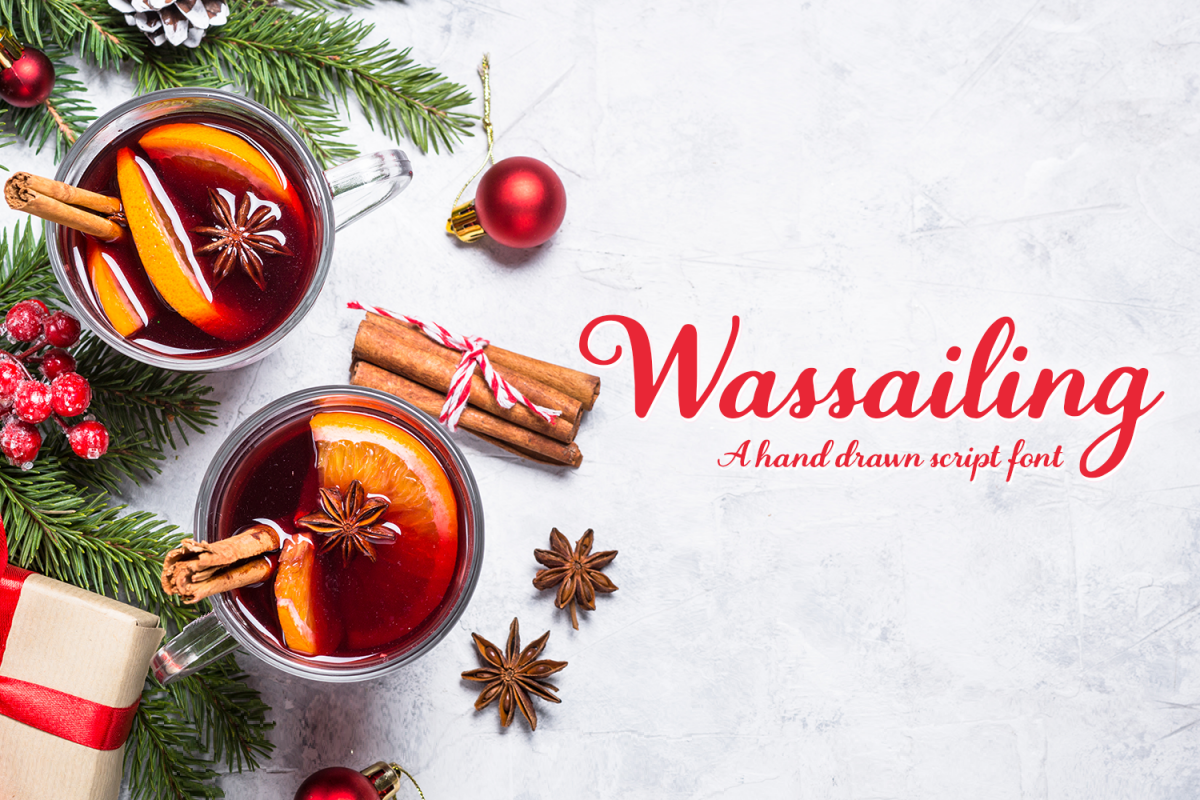
Wassailing - A handwritten script font
Wassailing
Wassailing is a handwritten script font created to give your Christmas just that little something special! Use it in your greeting cards, craft projects, invitations and more!